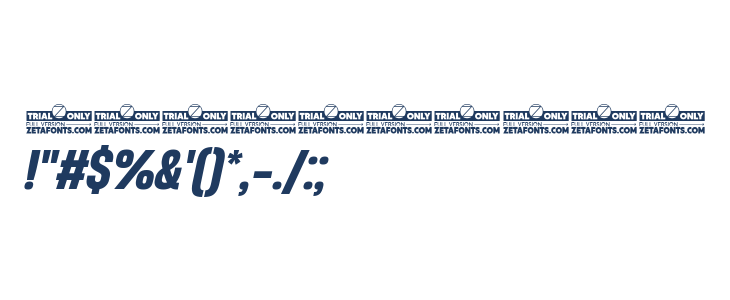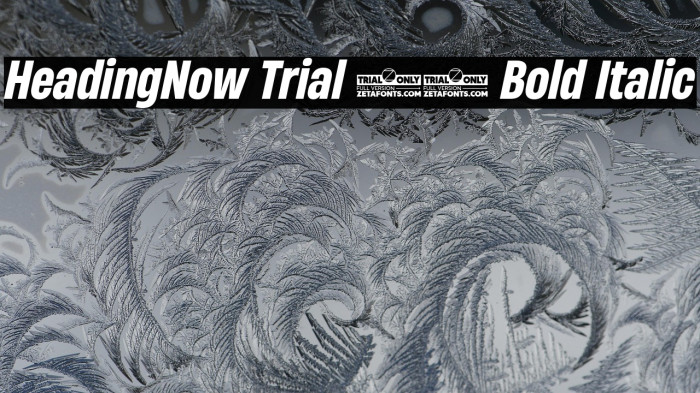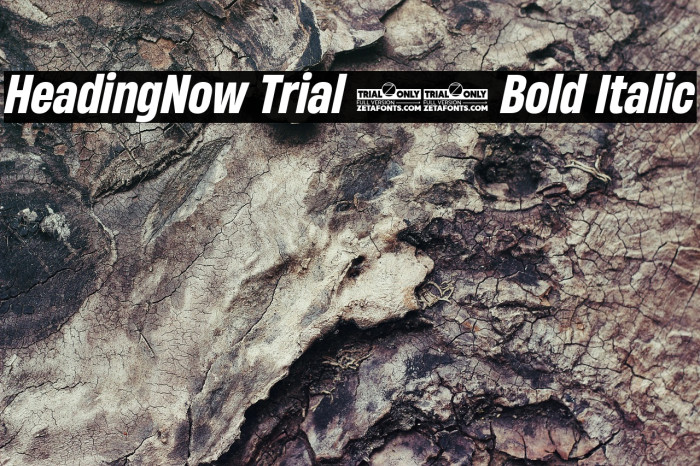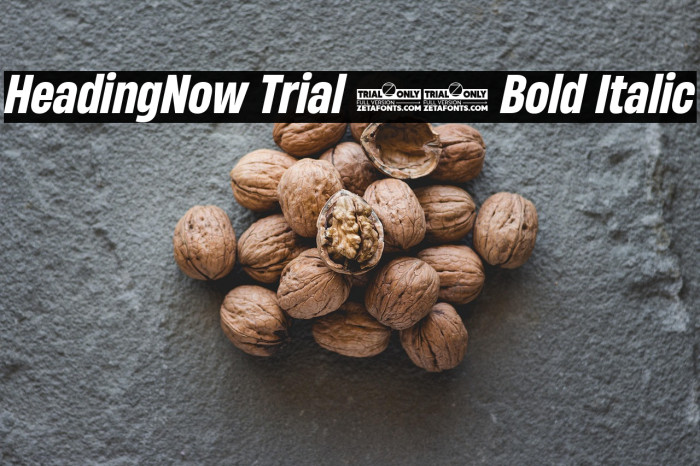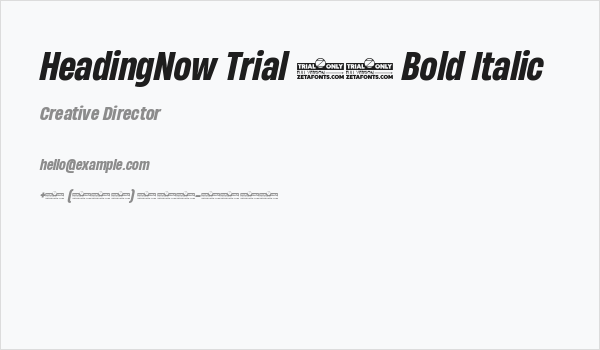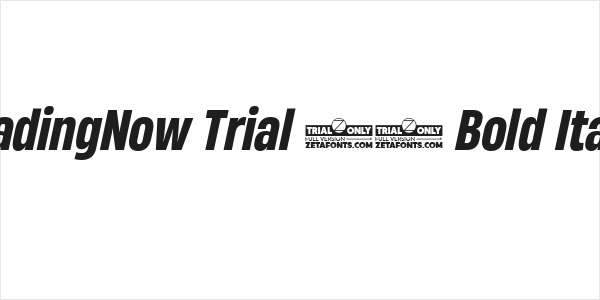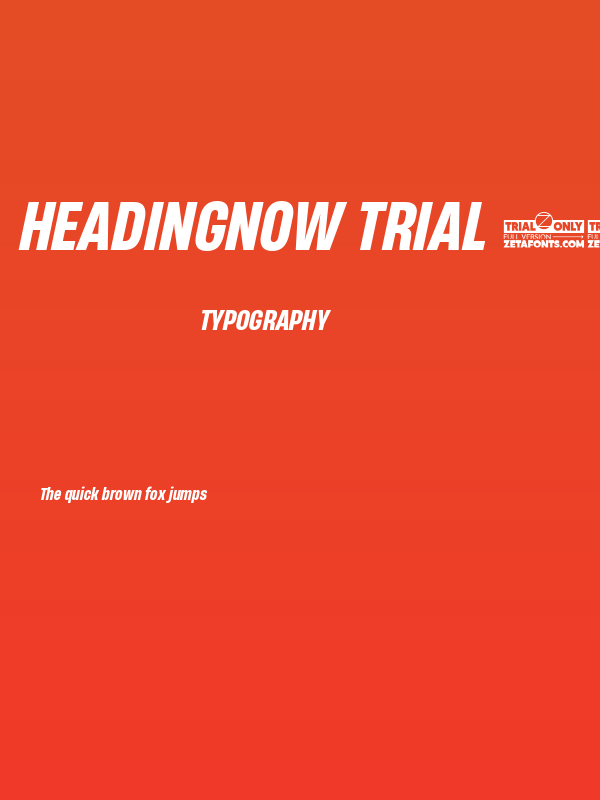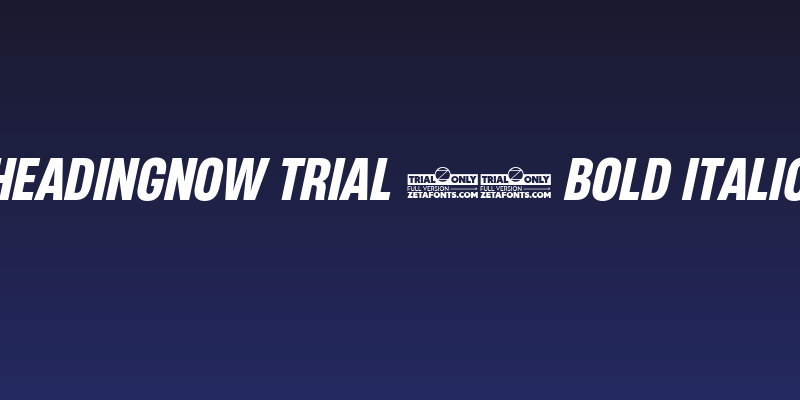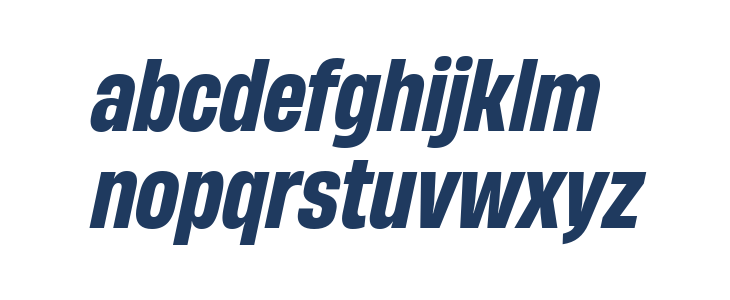
HeadingNow Trial 56 Bold Italic Font
HeadingNow Trial 56 Bold Italic Description
This font exhibits a bold and italicized style, characterized by its strong presence and dynamic slant. The uppercase and lowercase letters are designed with a consistent thickness, creating a uniform appearance across the alphabet. The numbers and special characters maintain the same boldness, ensuring readability and impact. The italic angle adds a sense of motion and modernity, making it suitable for attention-grabbing headlines and titles. The font's overall design is clean and straightforward, with a slight emphasis on the diagonal strokes, enhancing its contemporary appeal.
| Proposed Projects | Ideal for headlines, advertising, branding, and any project requiring a strong visual impact. |